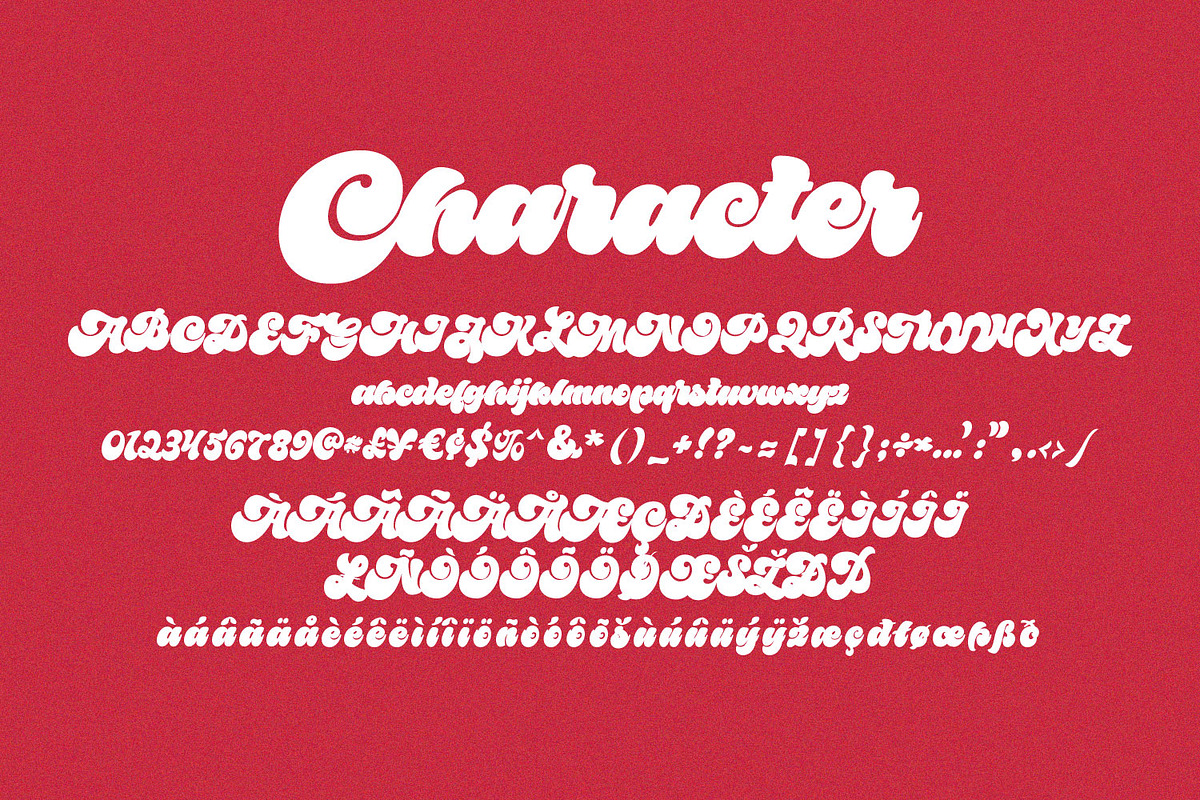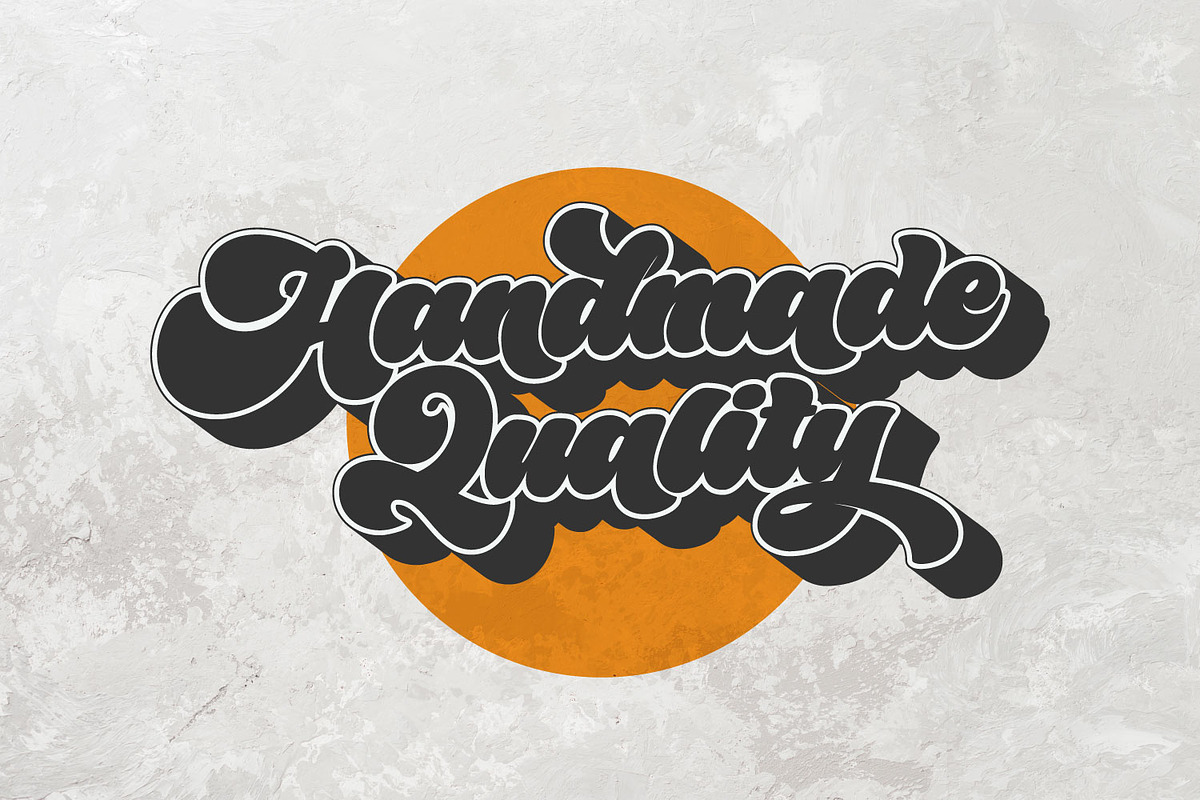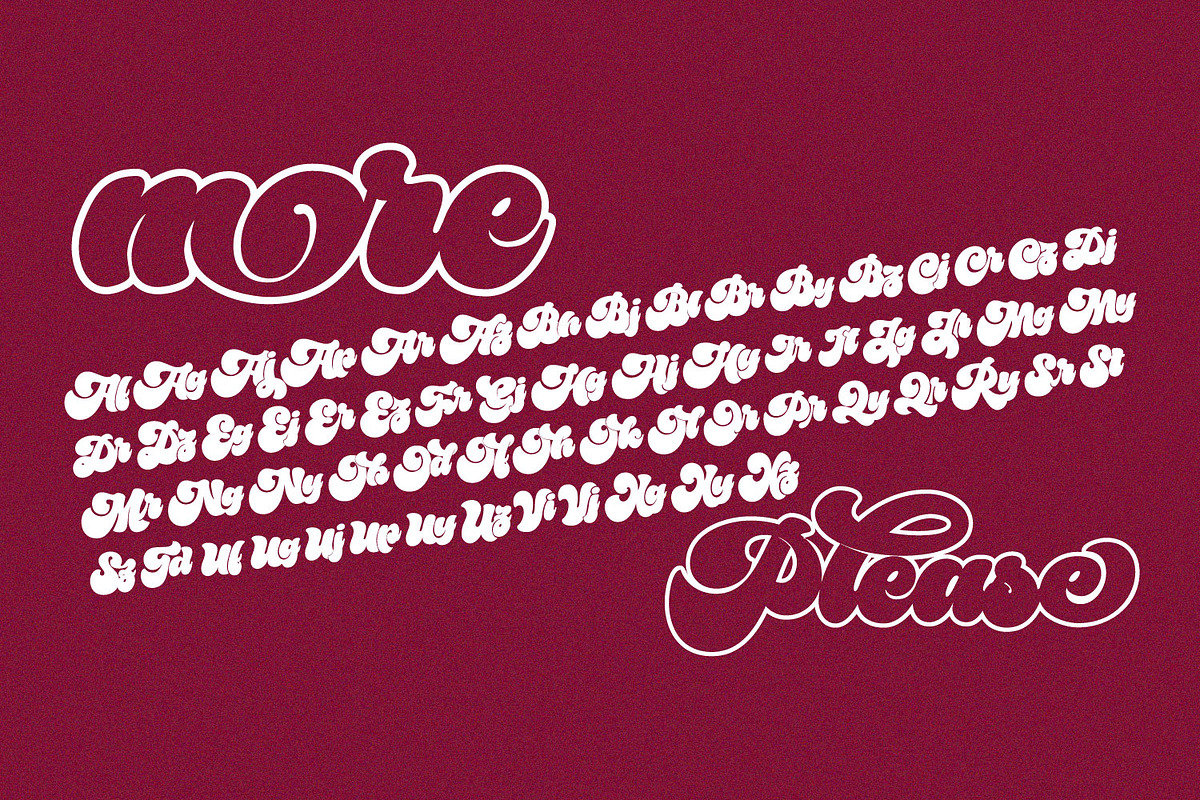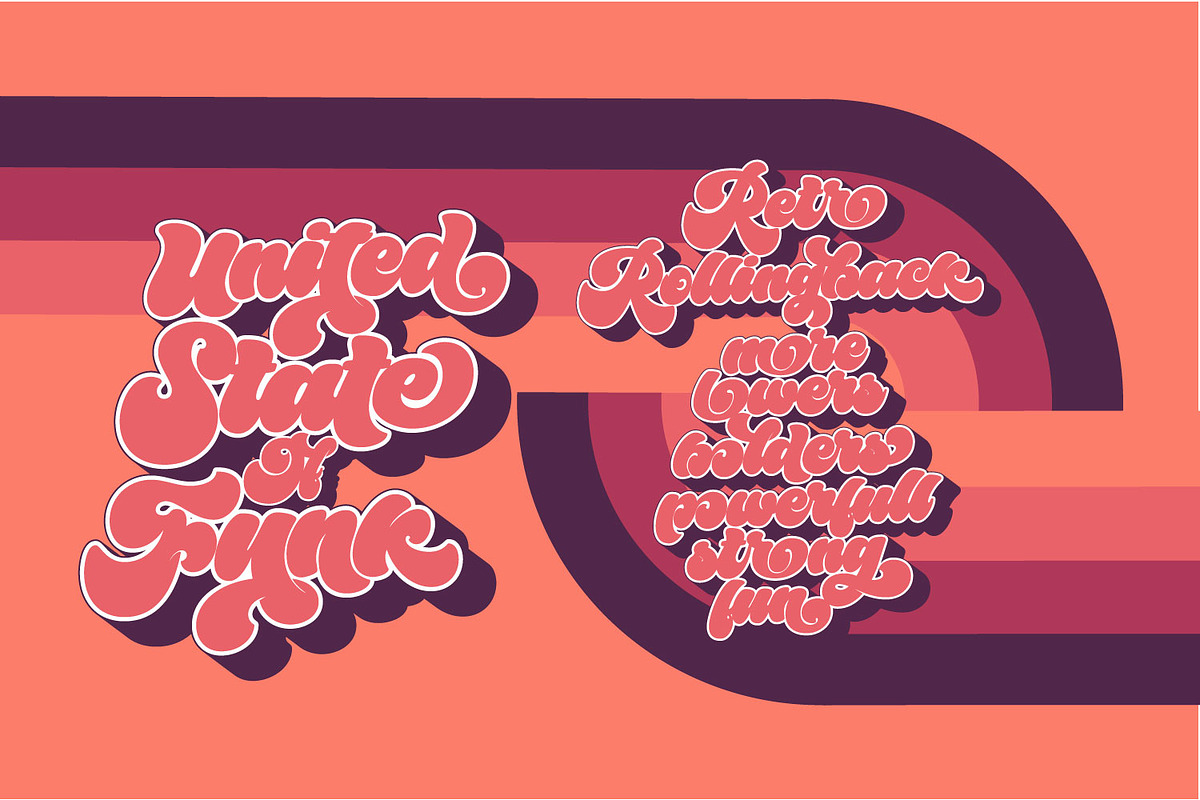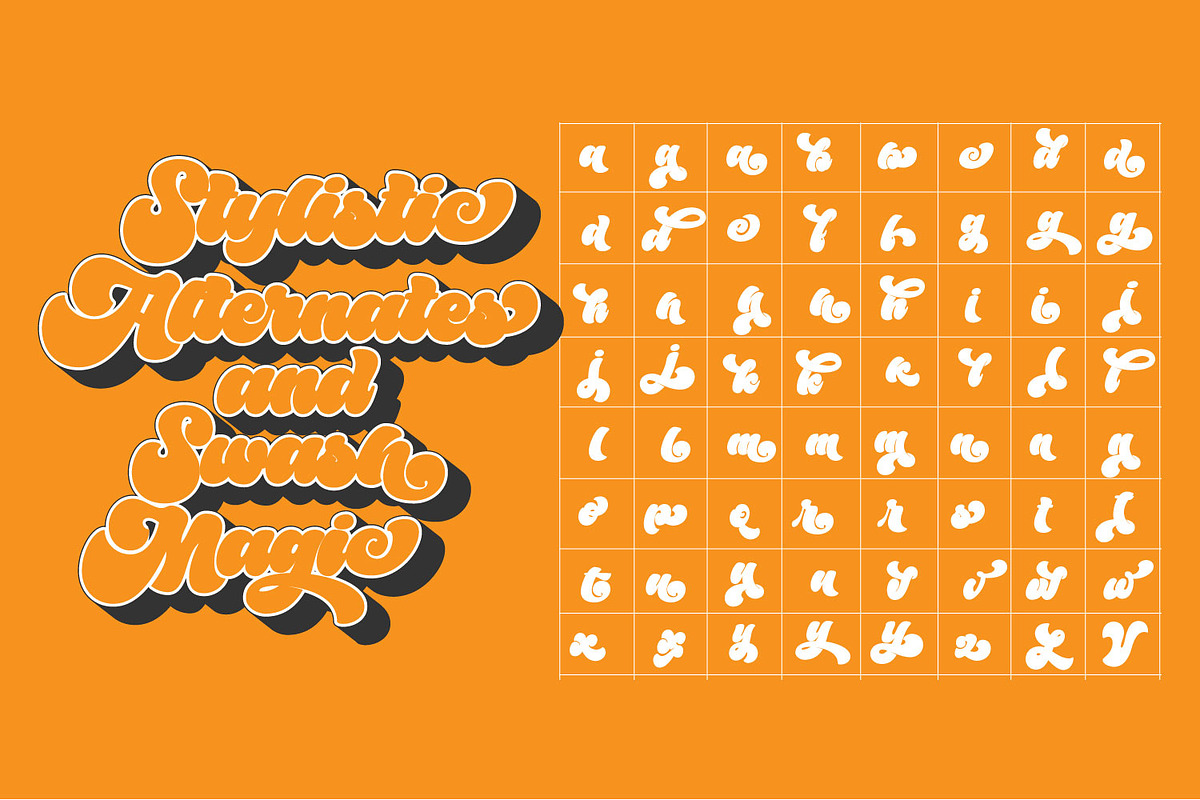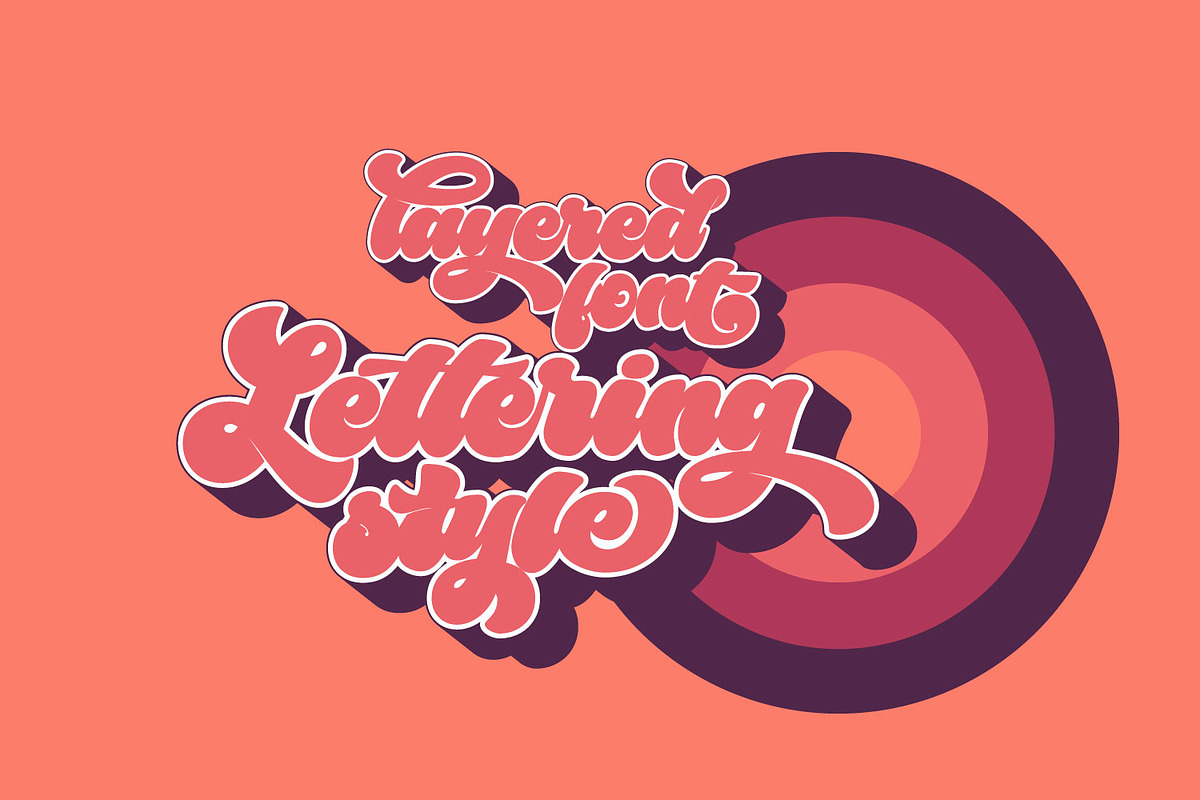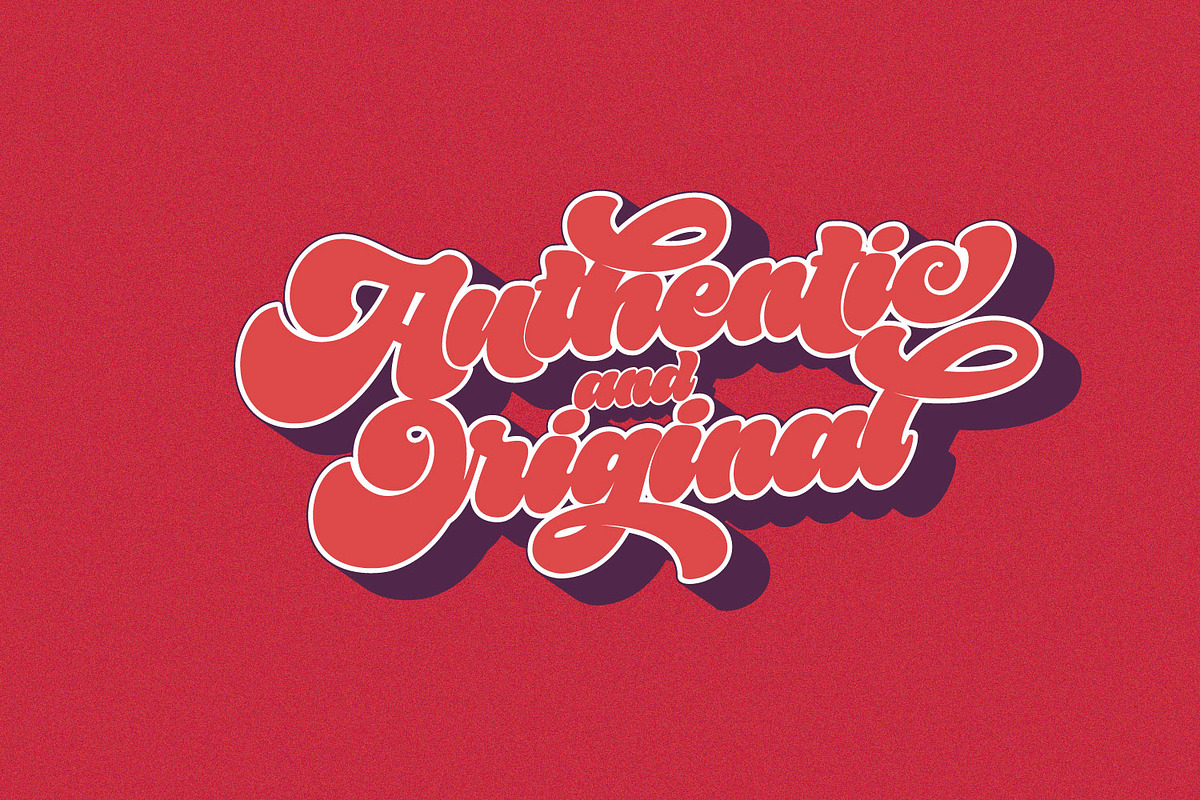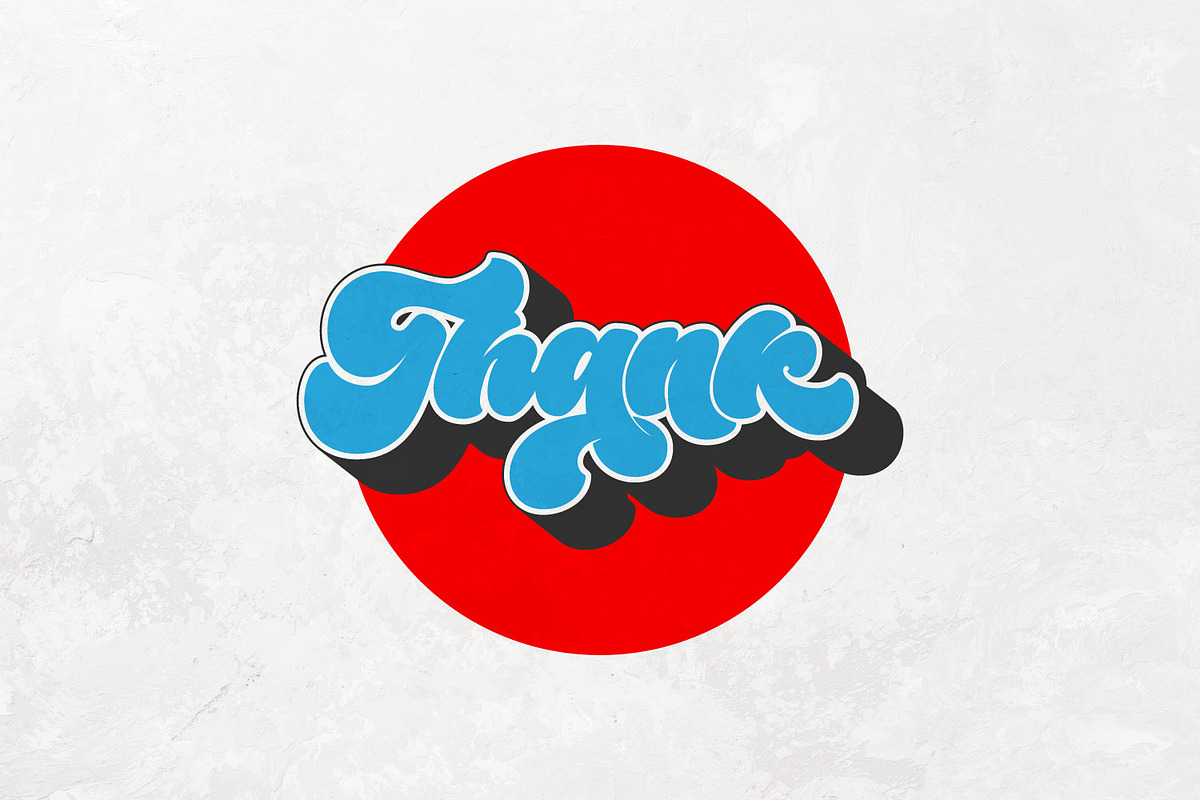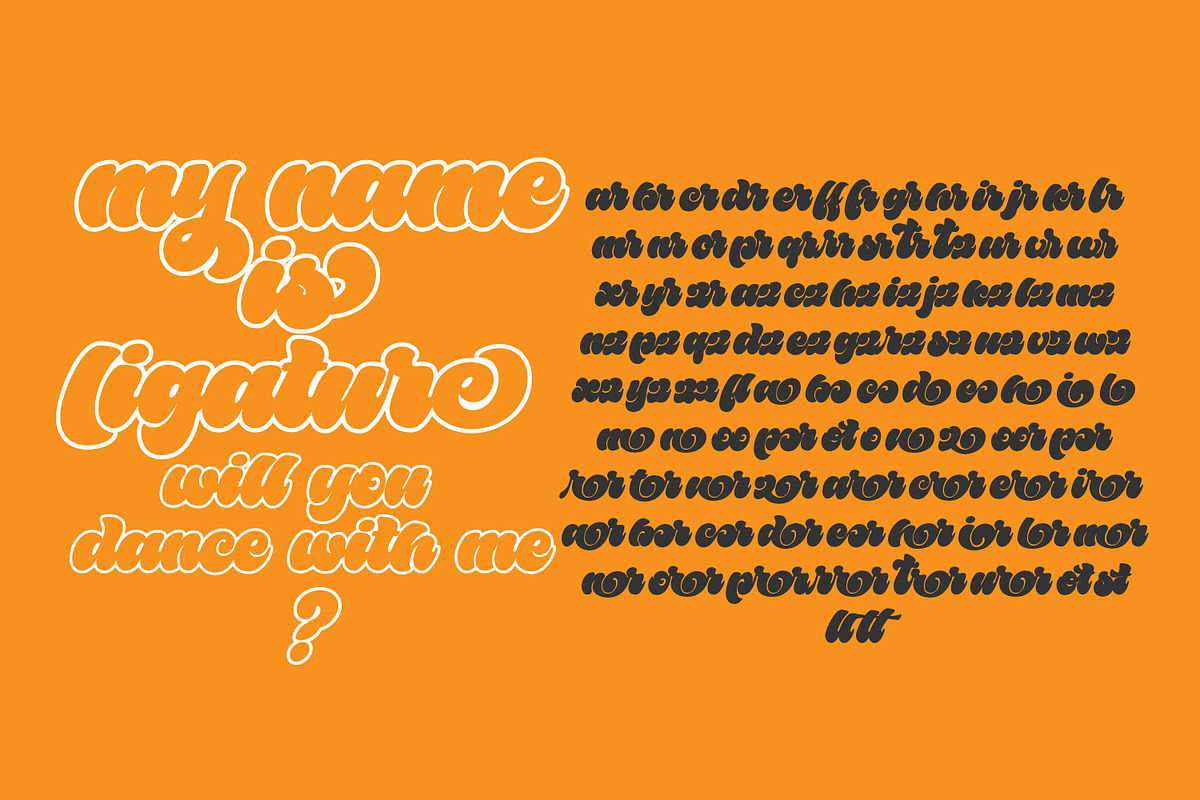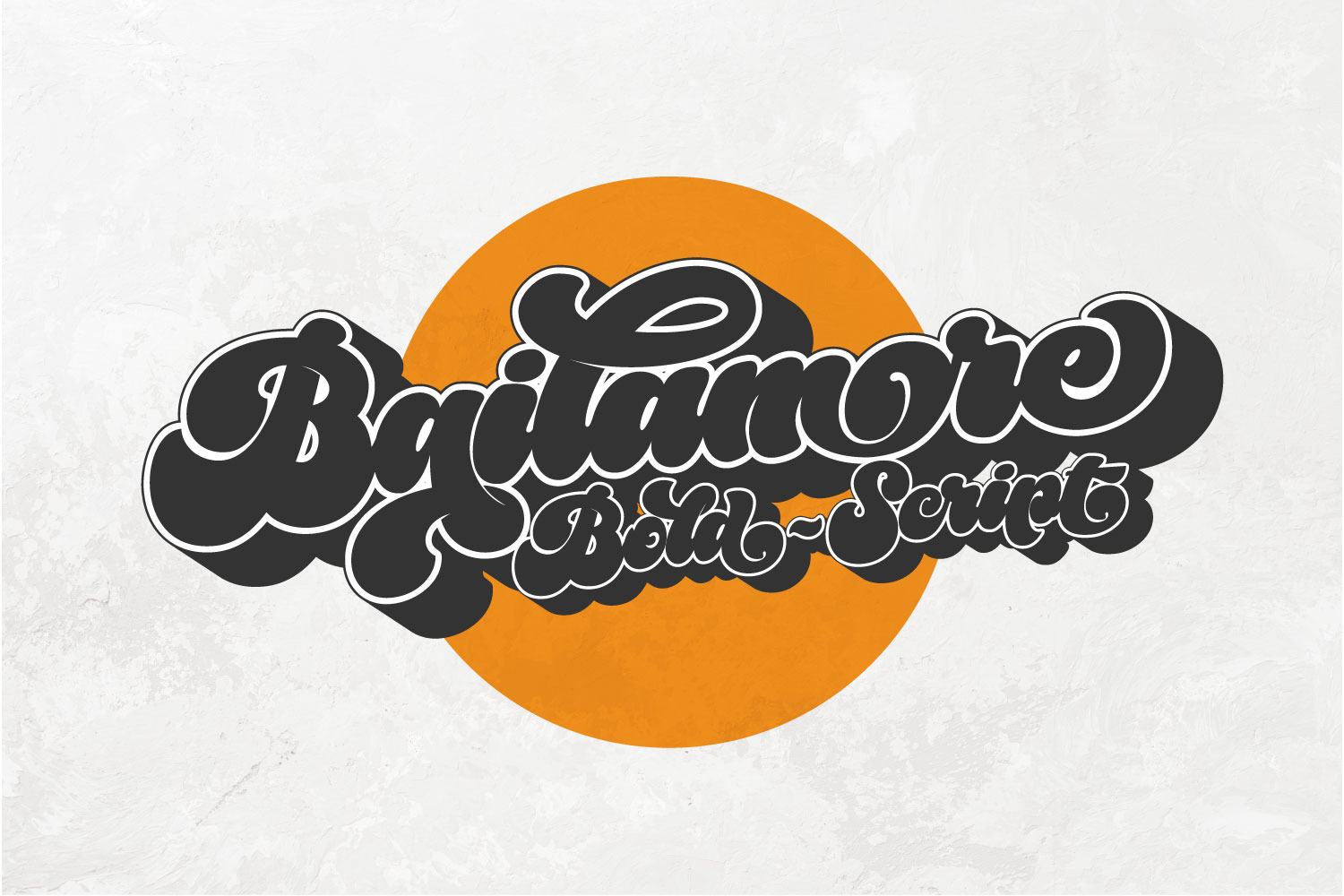
Bailamore - Retro Display Font
Bailamore is a retro boldscript font. We're pouring the lettering styles into fonts. As much as possible we make this font well integrated with spacing and balance of space. We made 159 ligatures. Activate the ligature mode and you are like being a lettering artist, plus 85 alternates to enrich the feel of lettering. This font consists of 3 fonts, namely regular, outline and shadow. Regular stands alone, while outline and shadow are complementary if you want a 3D extrude impression. Please see the video torial here: https://youtu.be/H71JEgEOows
Please try and enjoy the retro bold Bailamore script